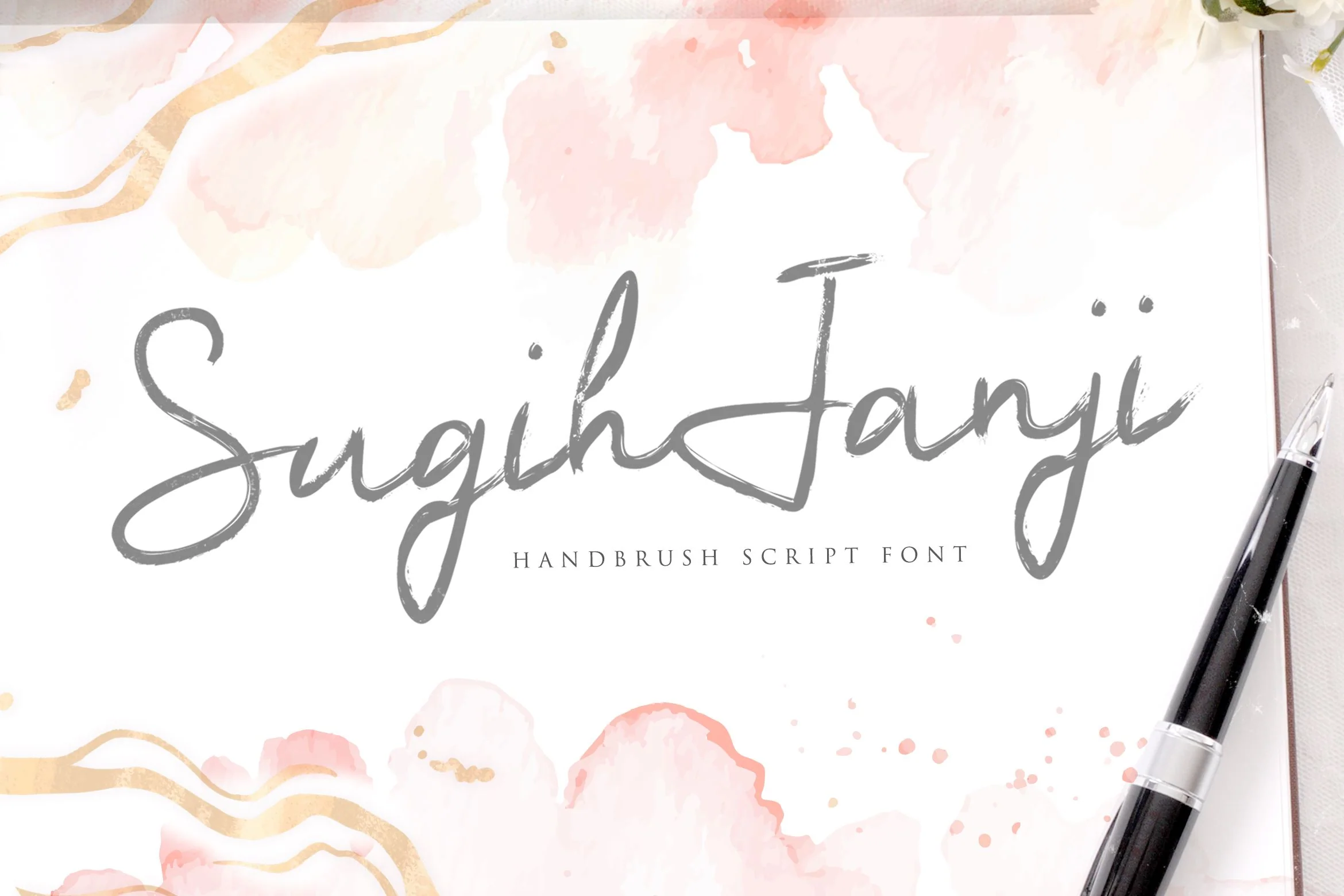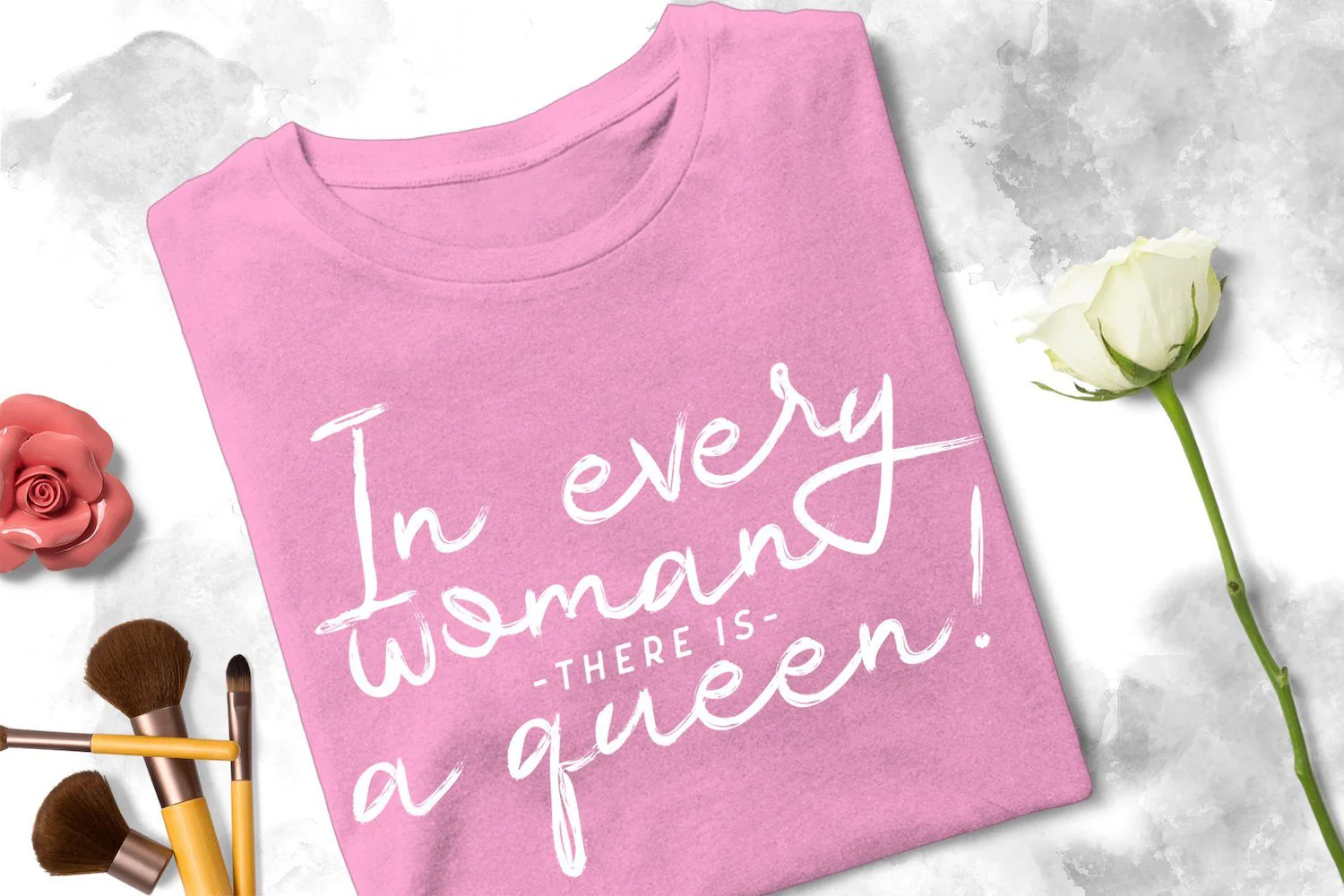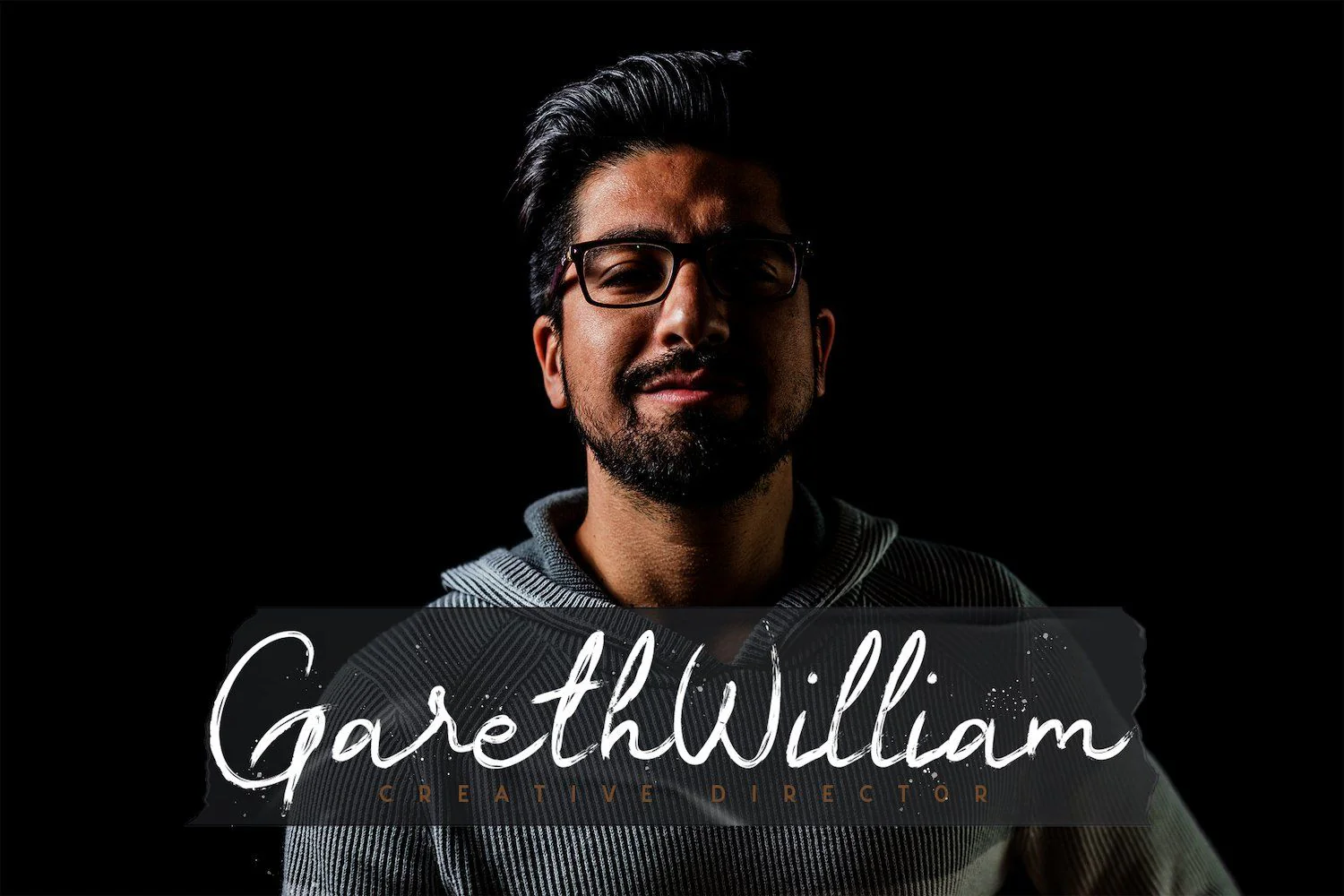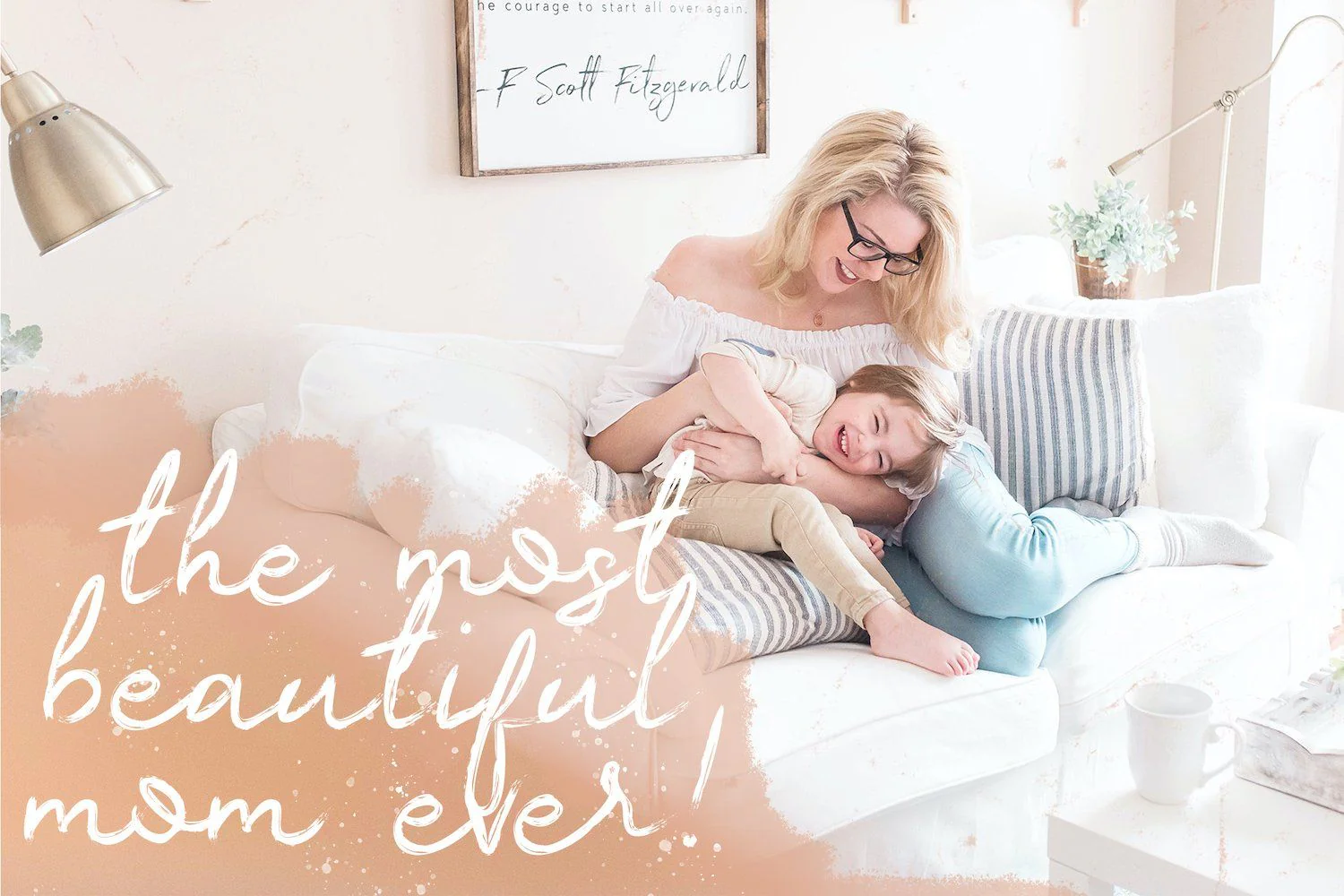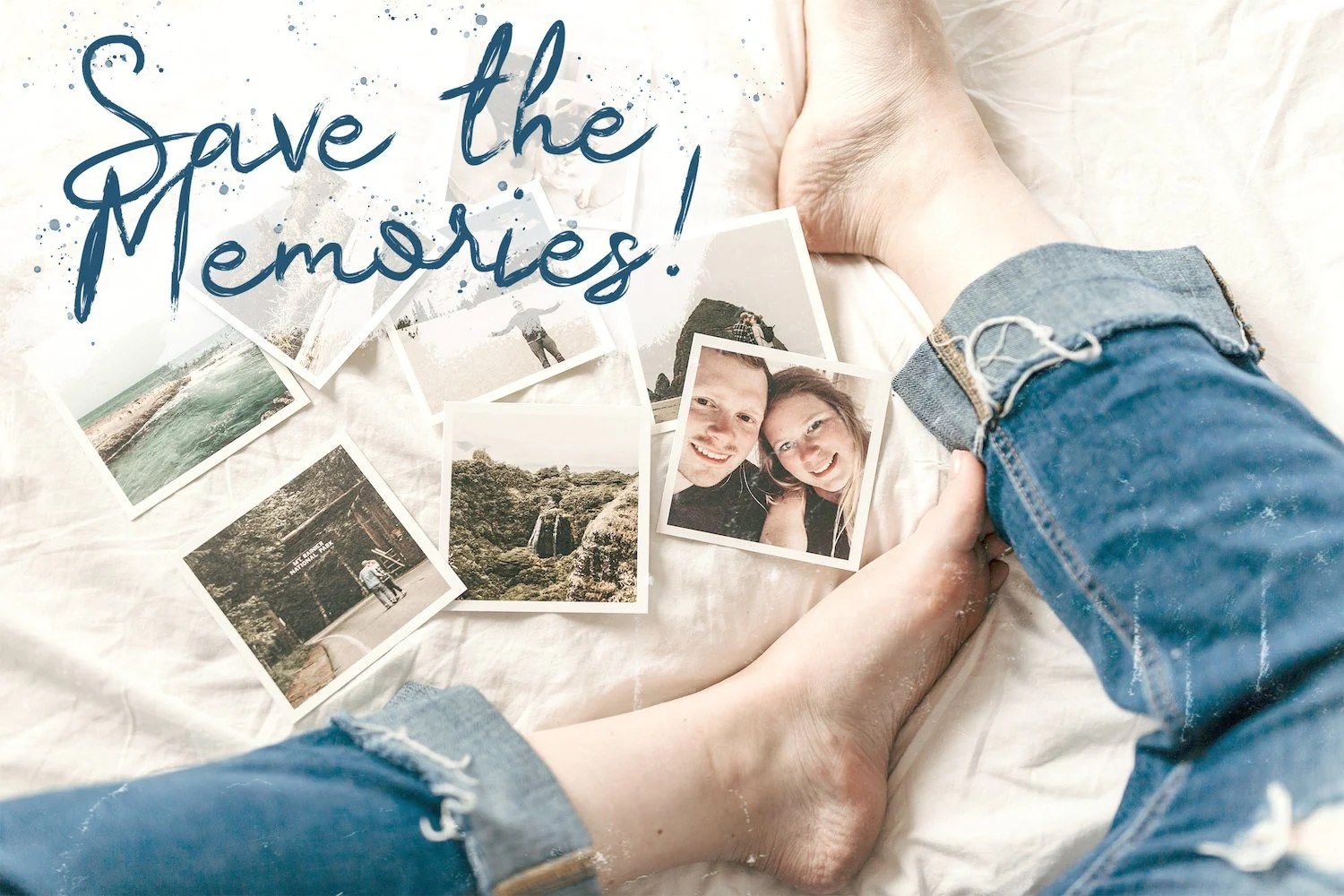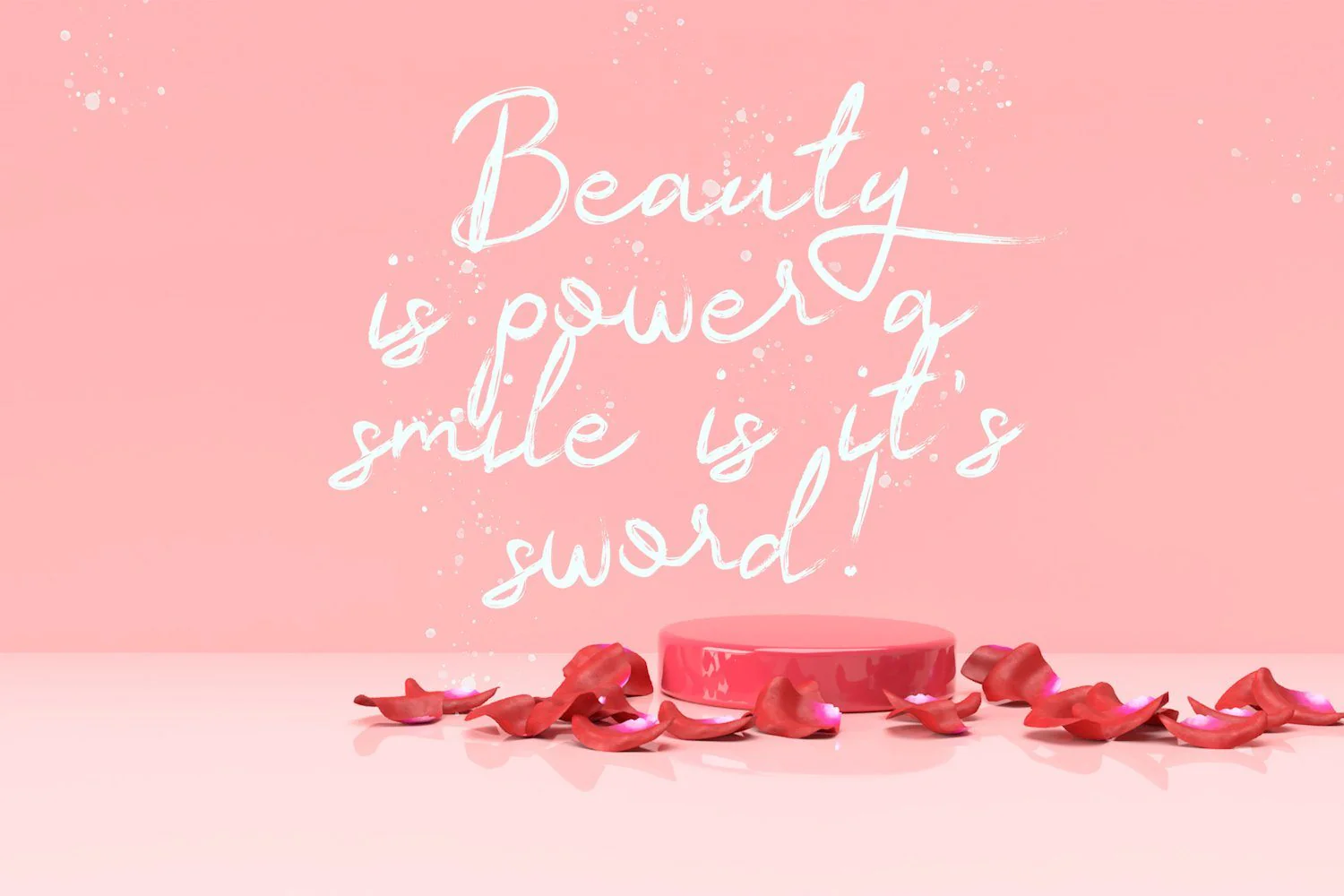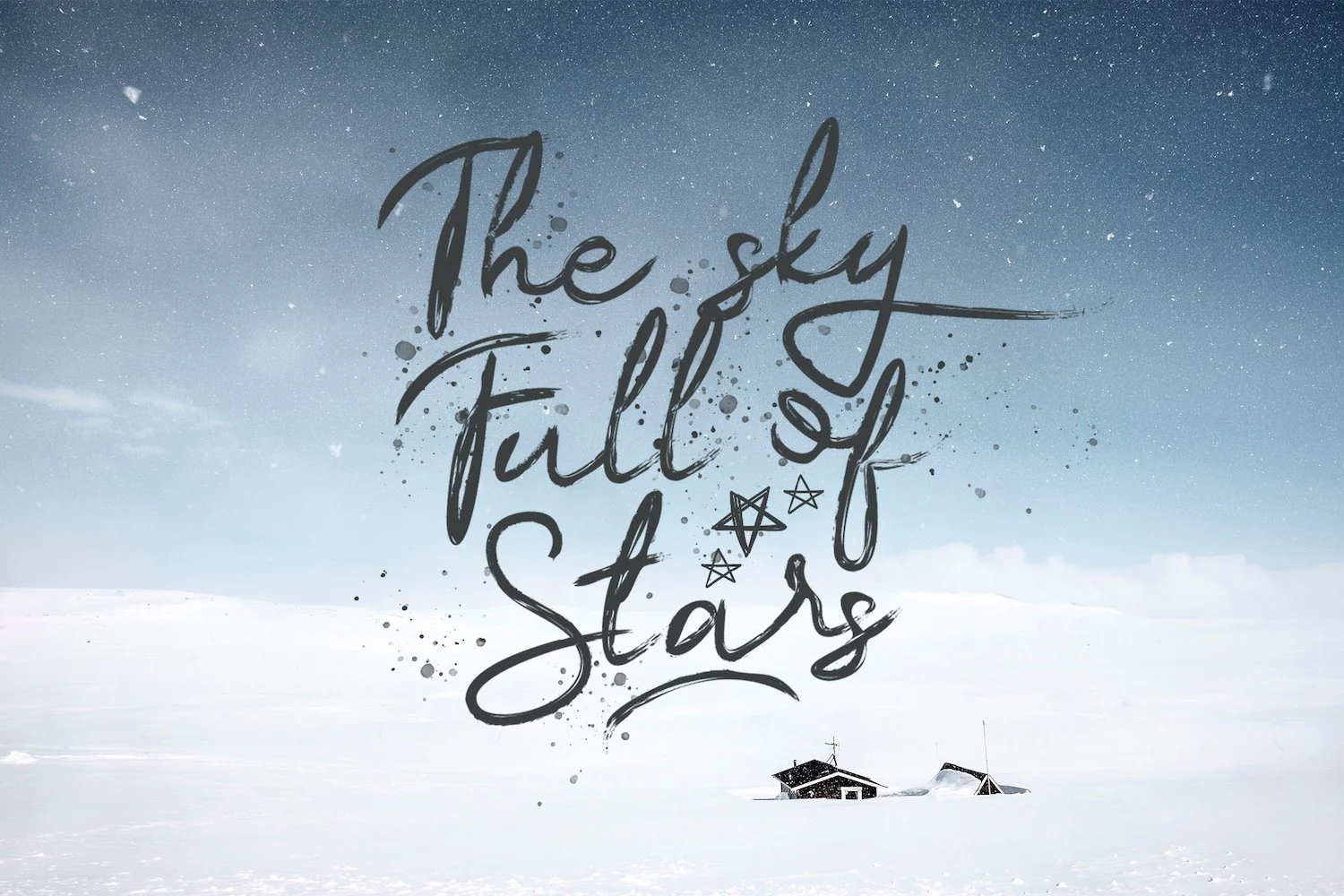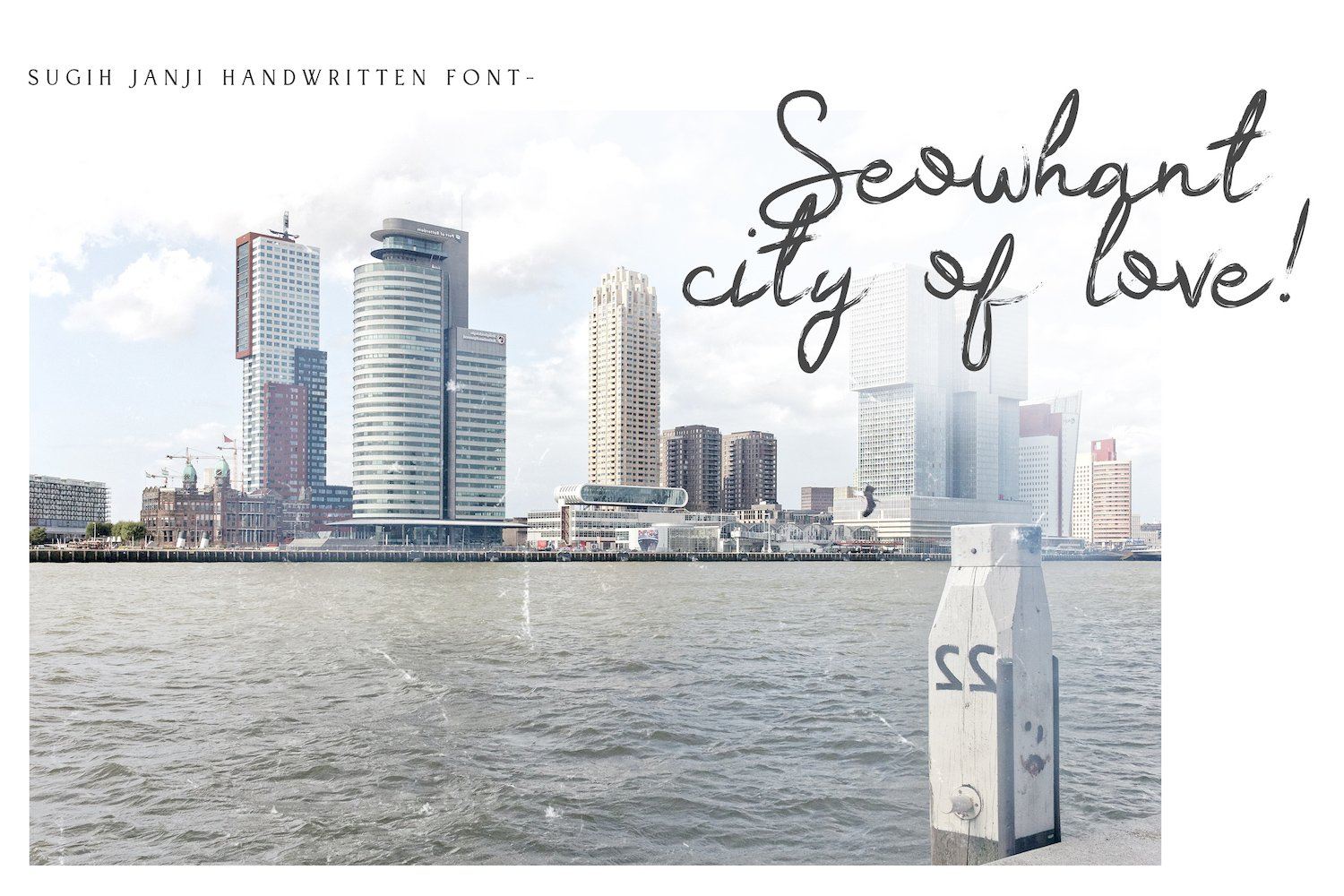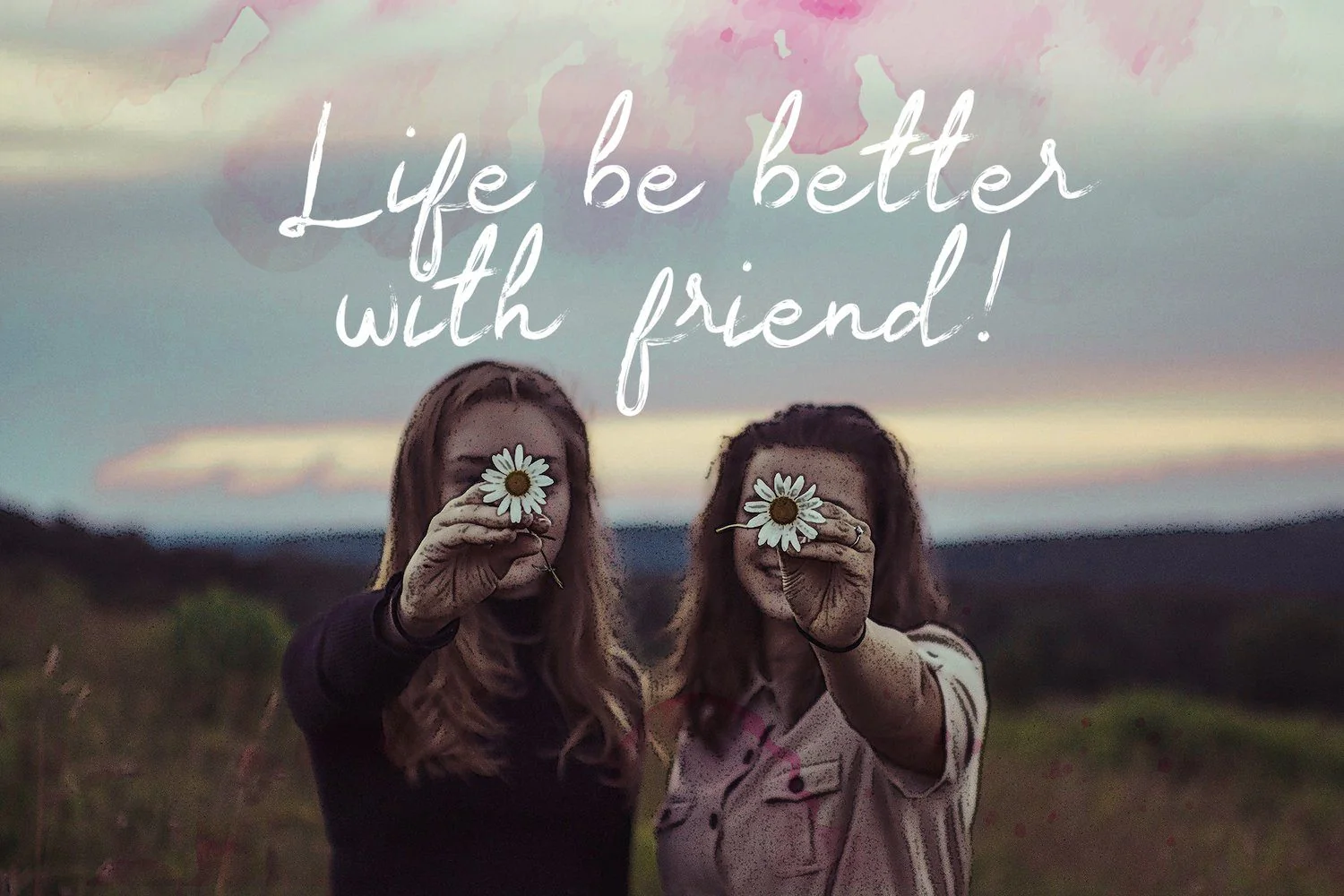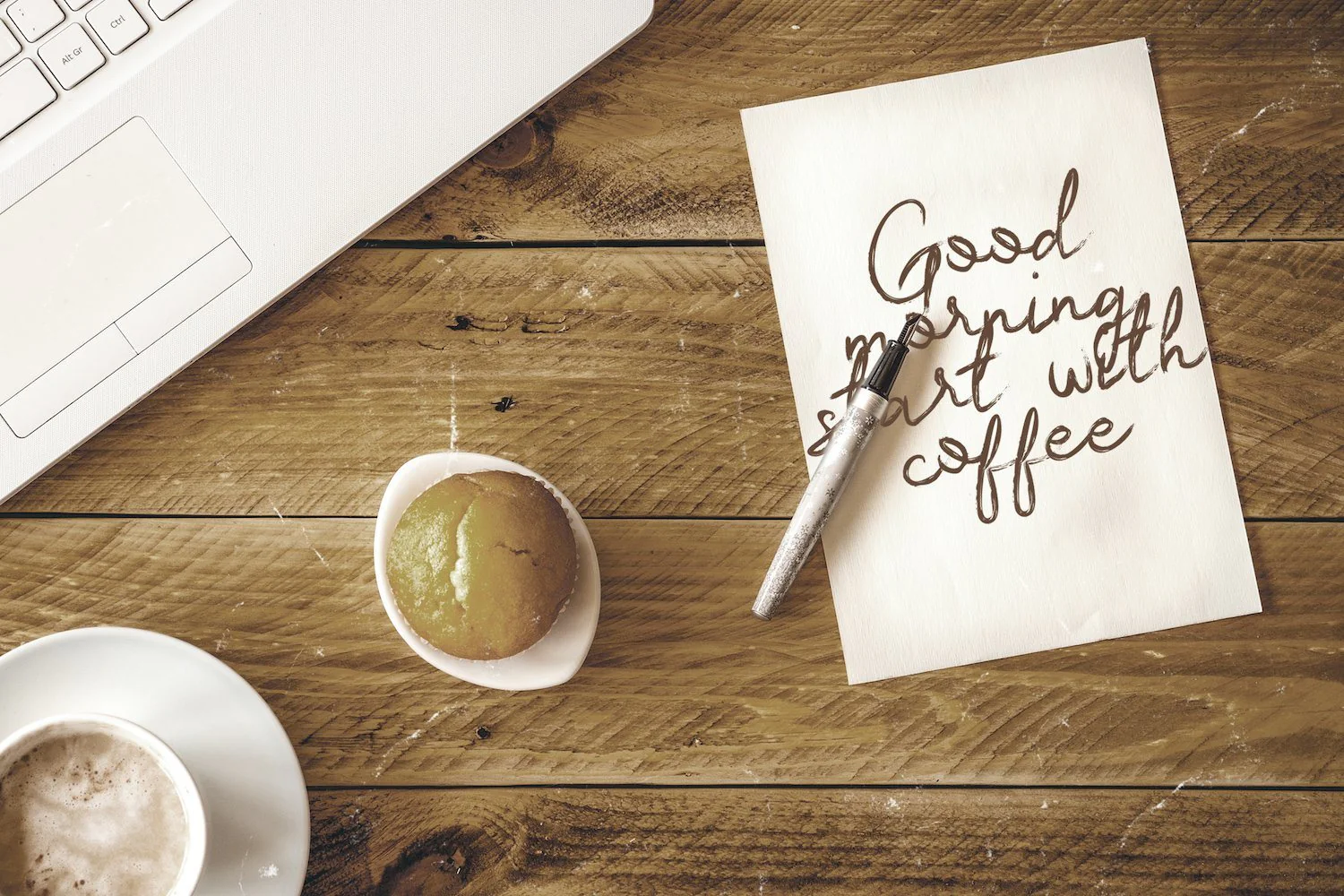
Sugih Janji - Handbrush Script Font
Introducing Sugih Janji - Handbrush Script Font
Sugih Janji is a flowing and elegant handwritten font, created with the help of a brush pen. Get inspired by its unique and beautiful style and add it to your favorite designs!
Introducing Sugih Janji - Handbrush Script Font
Sugih Janji is a flowing and elegant handwritten font, created with the help of a brush pen. Get inspired by its unique and beautiful style and add it to your favorite designs!